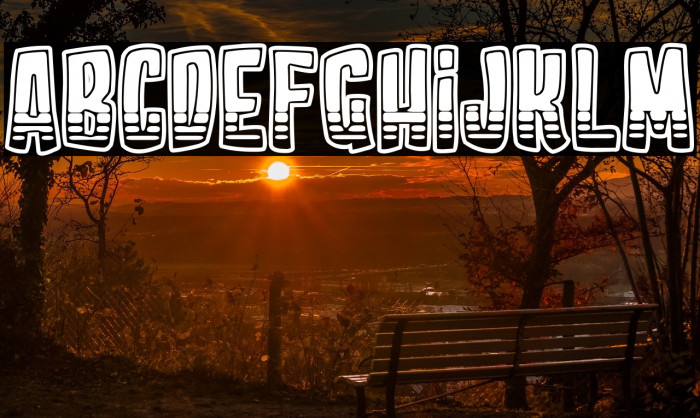
Strange Marvel Font
This font features a bold, playful style with a three-dimensional effect that gives it a unique, eye-catching appearance. The letters are uppercase with a shadowed outline that adds depth and character. The design incorporates a striped pattern within each character, enhancing its dynamic and energetic feel. The numbers and special characters follow the same stylistic approach, ensuring consistency across all elements. This font is ideal for projects that require a fun and engaging visual impact.
A bold, playful font with a 3D effect and striped pattern.
- Font: Strange Marvel
- Proposed Projects: Perfect for comic book titles, children's book covers, playful branding, and event posters.
- Overall Style: Playful, Energetic, Modern